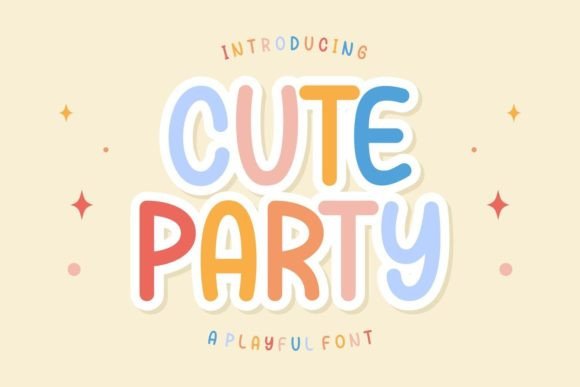
Introducing Cute Party Font - the ultimate choice for those seeking the best fonts for kids in Word! Created by the talented Wakhamm from 7NTypes, this font is not only visually appealing but also packed with endless creative possibilities.
With its fun, bold, and playful design, Cute Party Font is guaranteed to capture the hearts of both children and adults alike. Whether you're a designer, parent, teacher, or simply someone looking to add a touch of charm to your projects, this font will delight and inspire you.
Unleash your creativity and let Cute Party Font be your go-to companion for all your design needs. From eye-catching posters that demand attention to captivating covers that entice readers, this font will take your creations to a whole new level.
But it doesn't stop there! Imagine transforming your child's nursery into a wonderland with Cute Party Font. Decorate the walls with adorable quotes, personalize their belongings, or create stunning invitations for their birthday parties. The possibilities are endless!
Product designs have never been more exciting. Add a burst of color and playfulness to your merchandise with Cute Party Font. From t-shirts to mugs, stationery to stickers, this font will bring life and joy to every item. Your customers won't be able to resist!
As you embark on your design journey, remember that Cute Party Font is not just a font. It's a gateway to imagination, a catalyst for creativity, and a vessel for self-expression. Let your ideas flow effortlessly as you explore the vast opportunities this font provides.
So why wait? Join the countless individuals who have already fallen in love with Cute Party Font. Stand out from the crowd, captivate your audience, and make a lasting impression with this incredible display font. Download it today and unlock a world of endless possibilities!